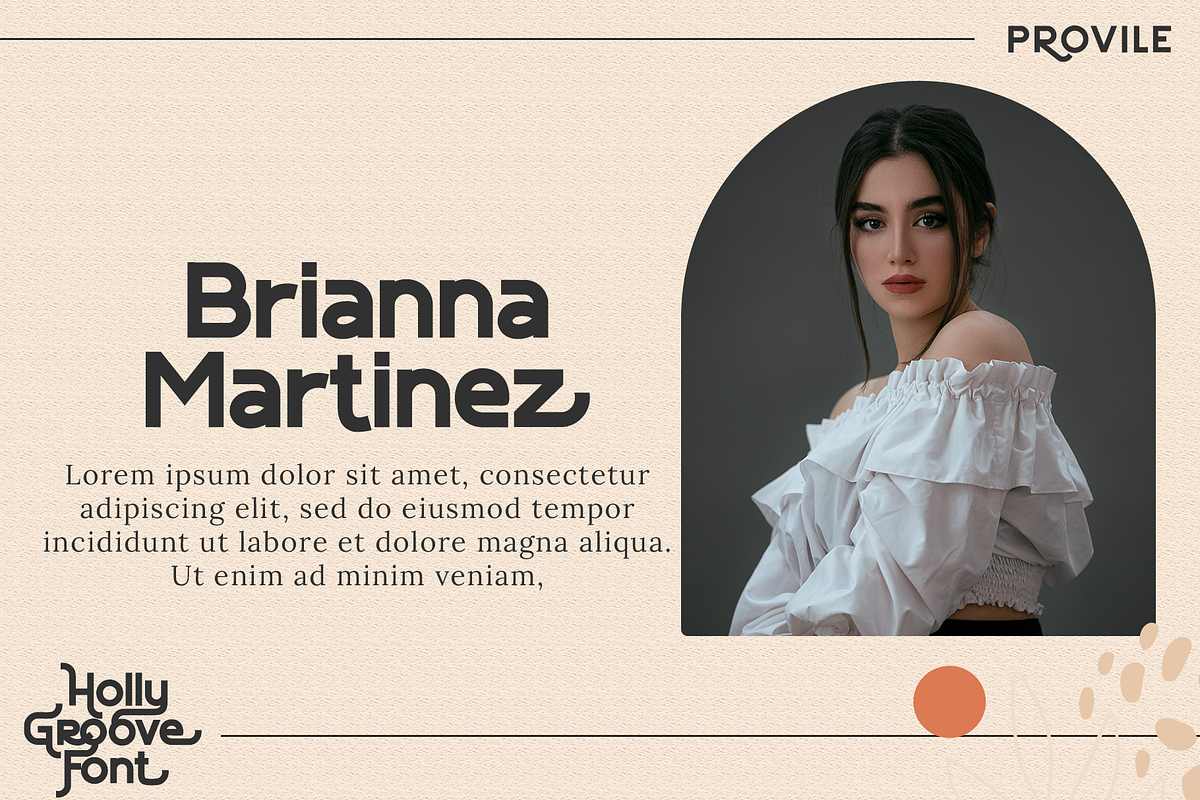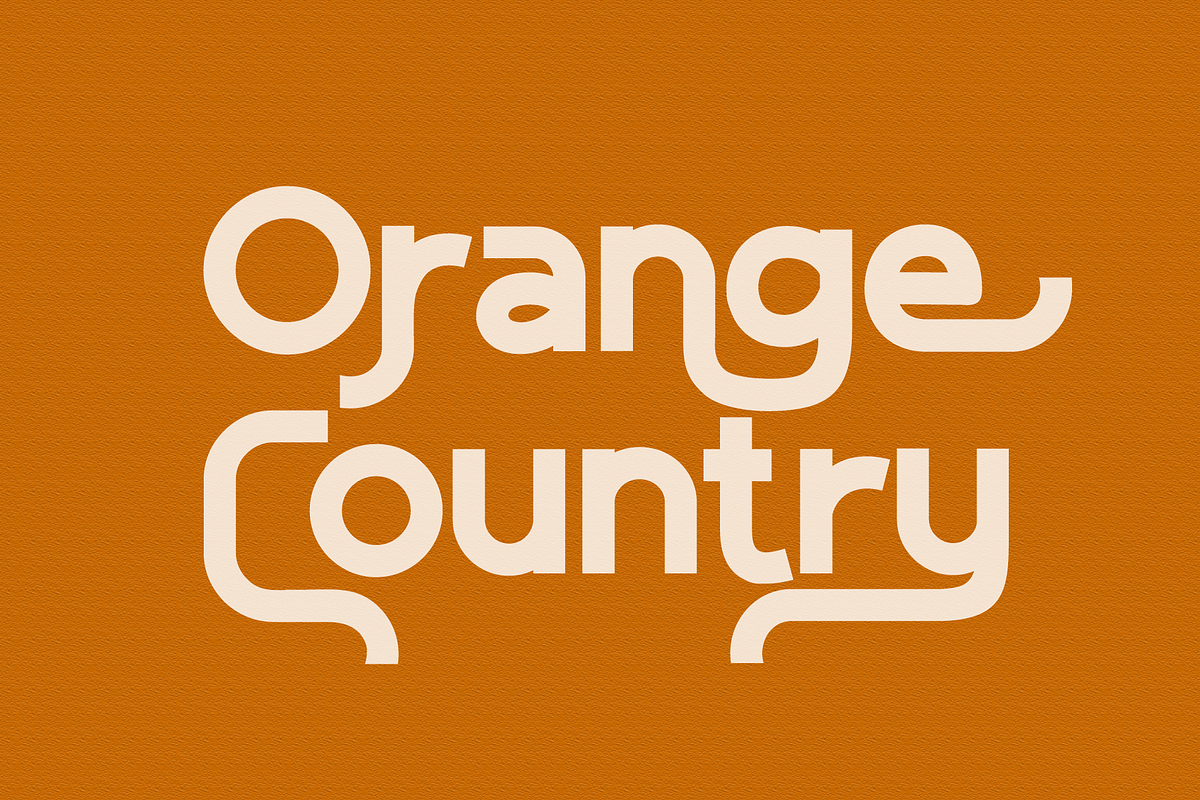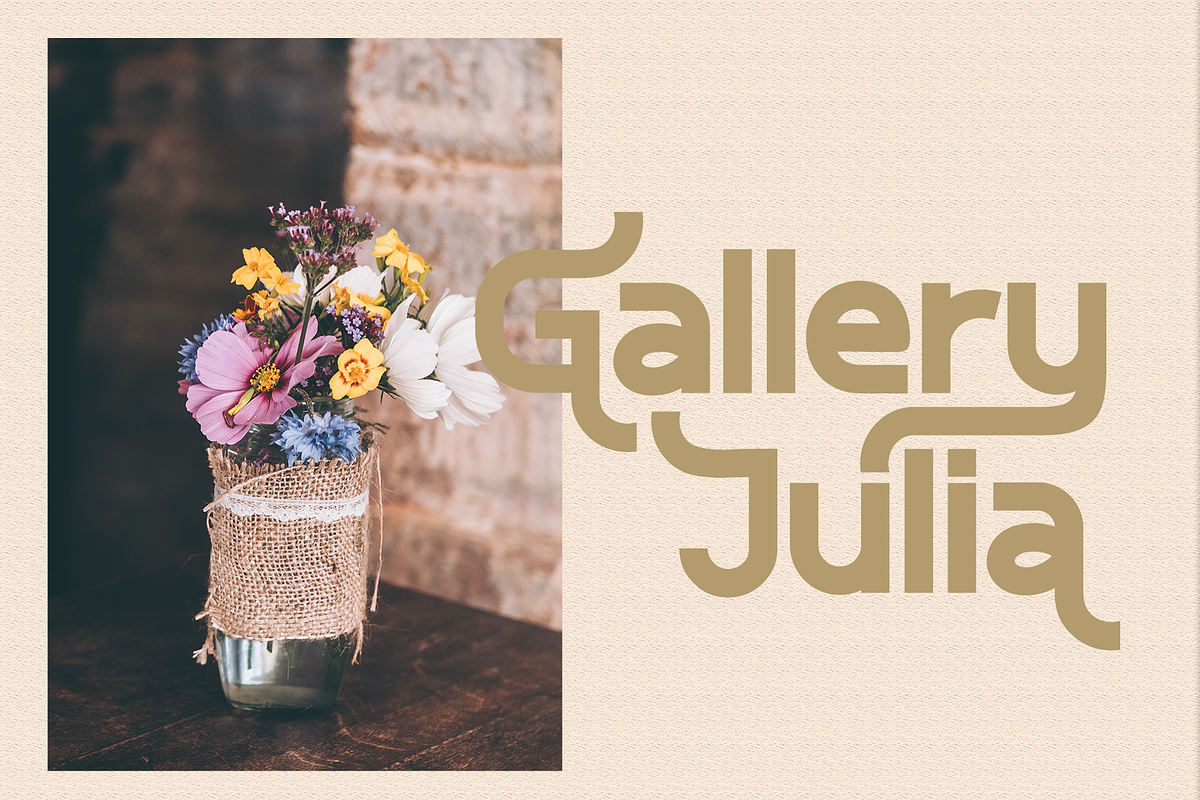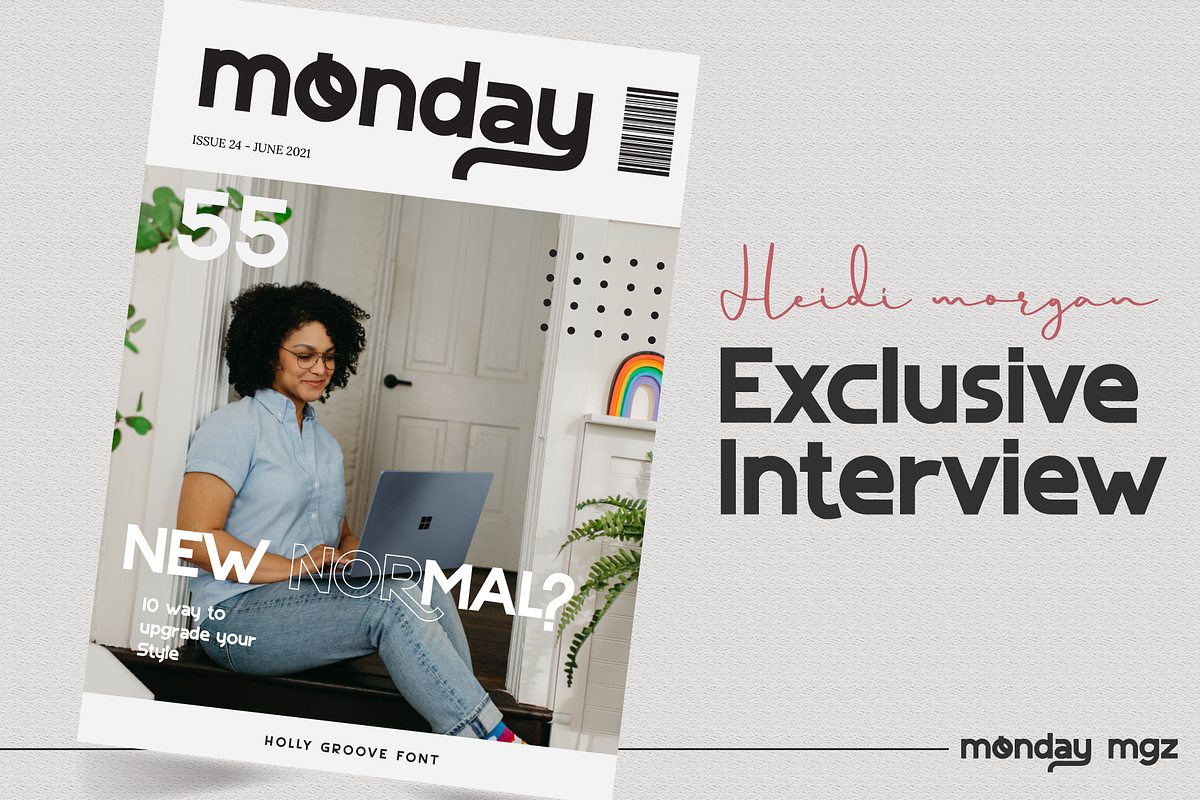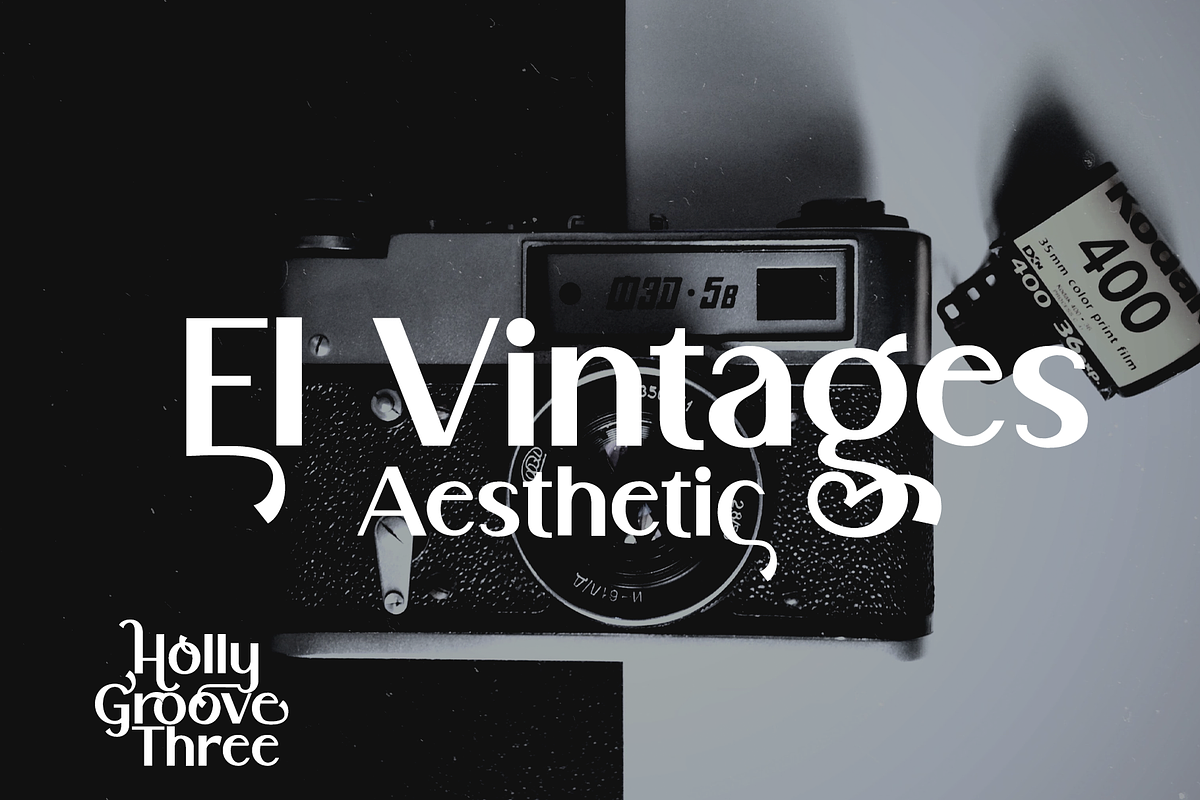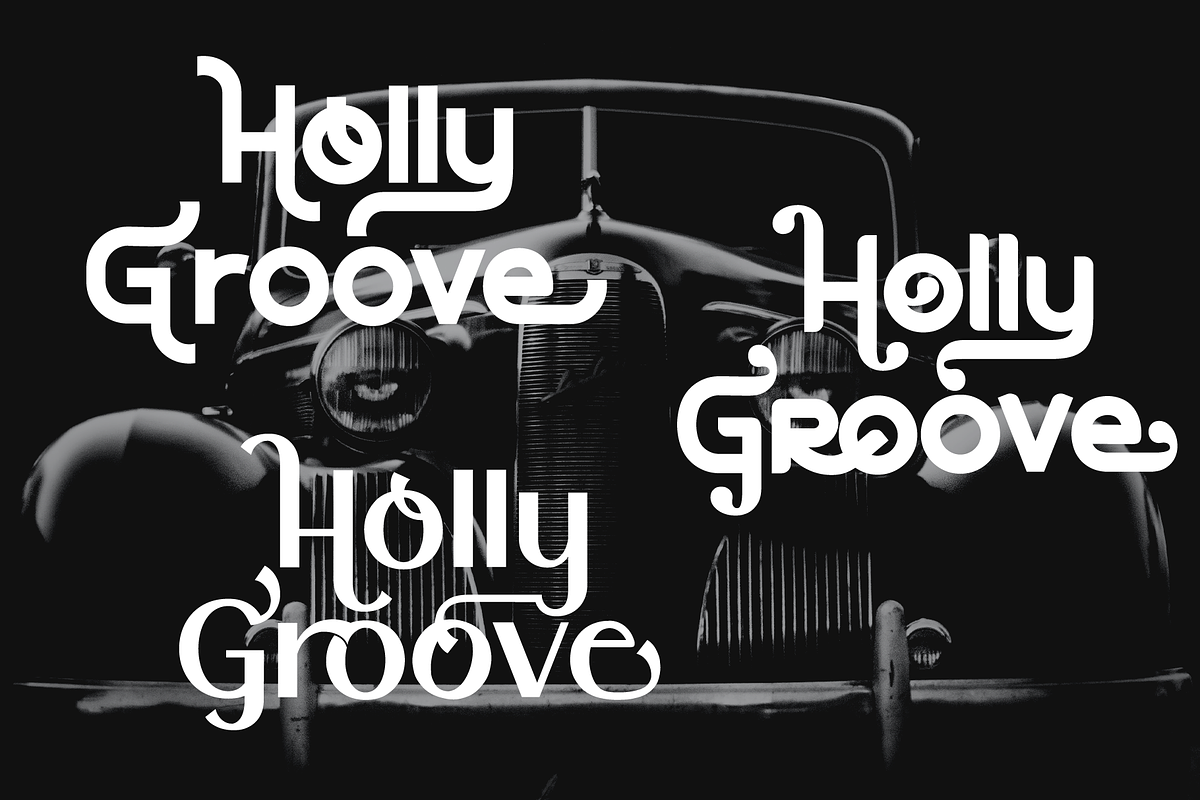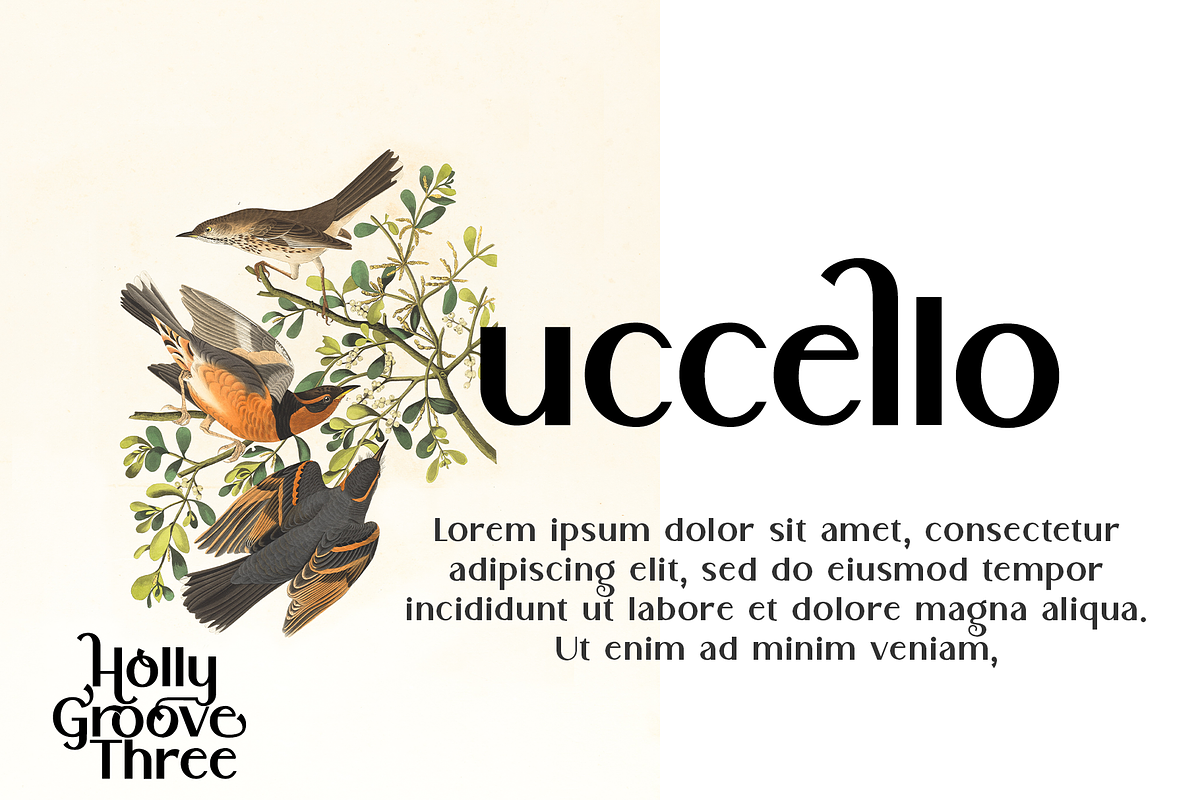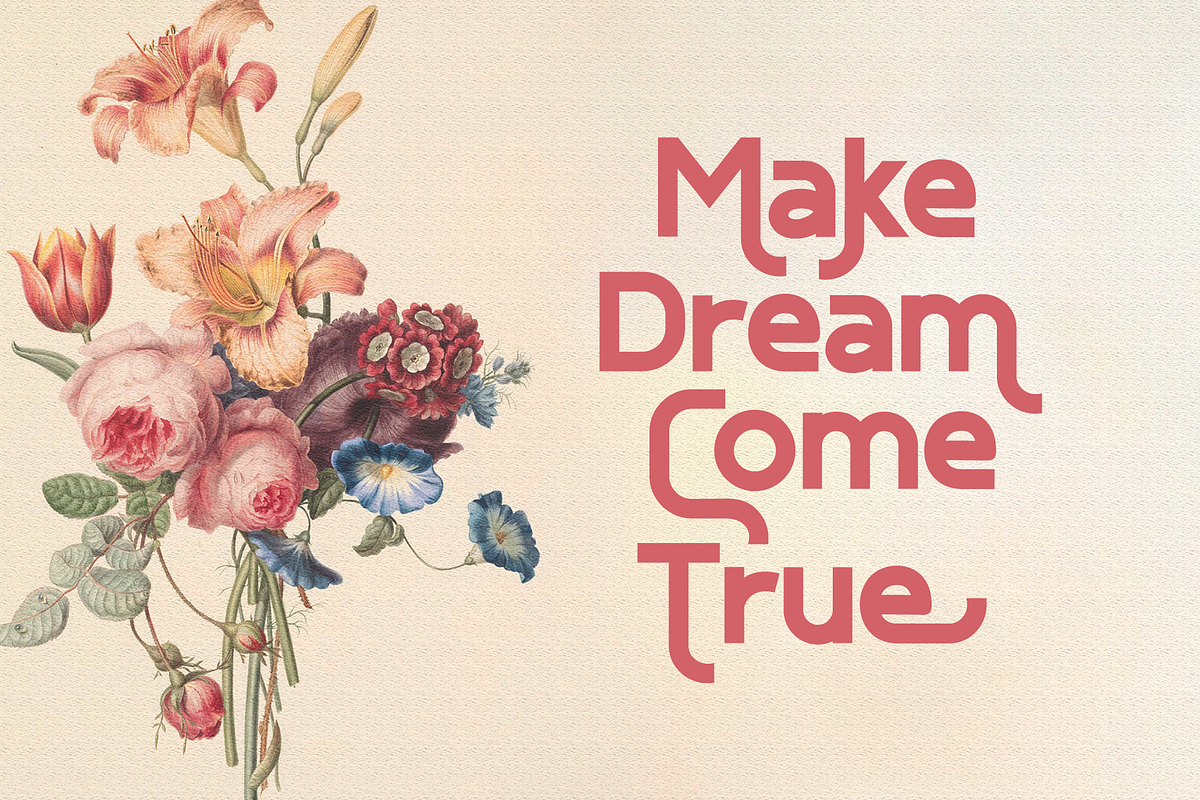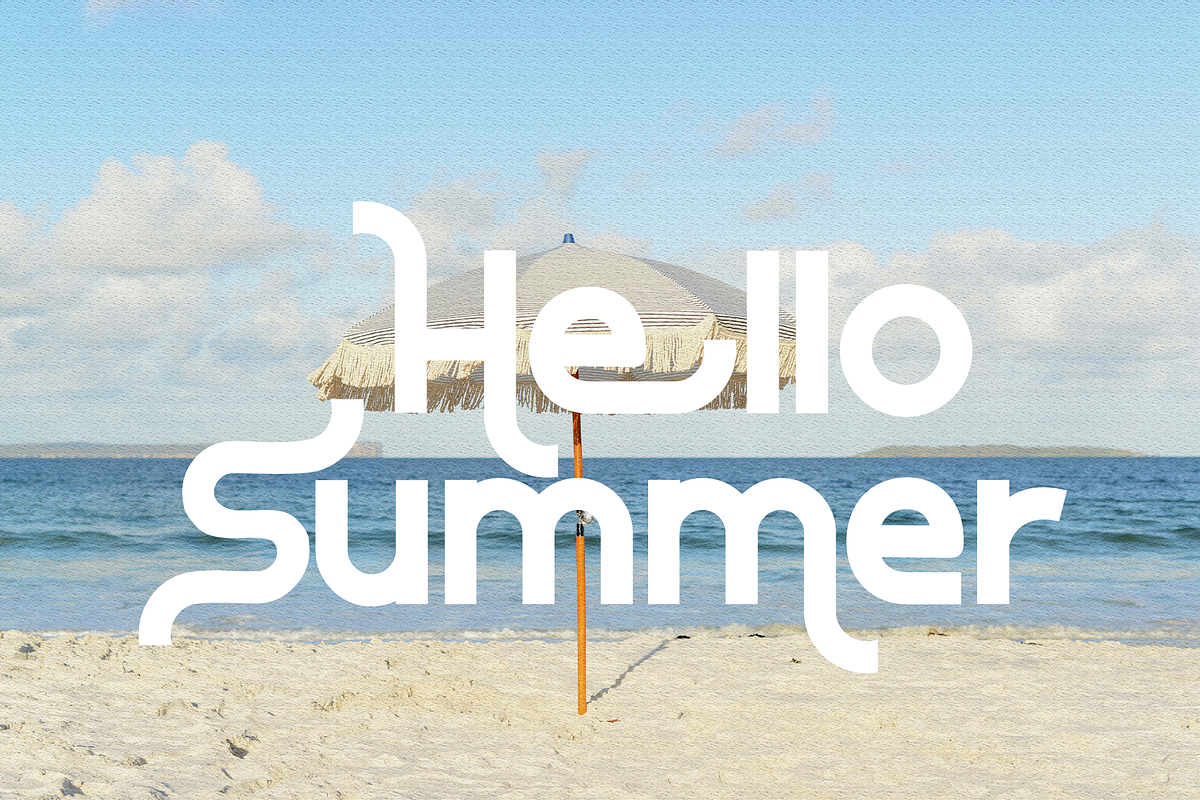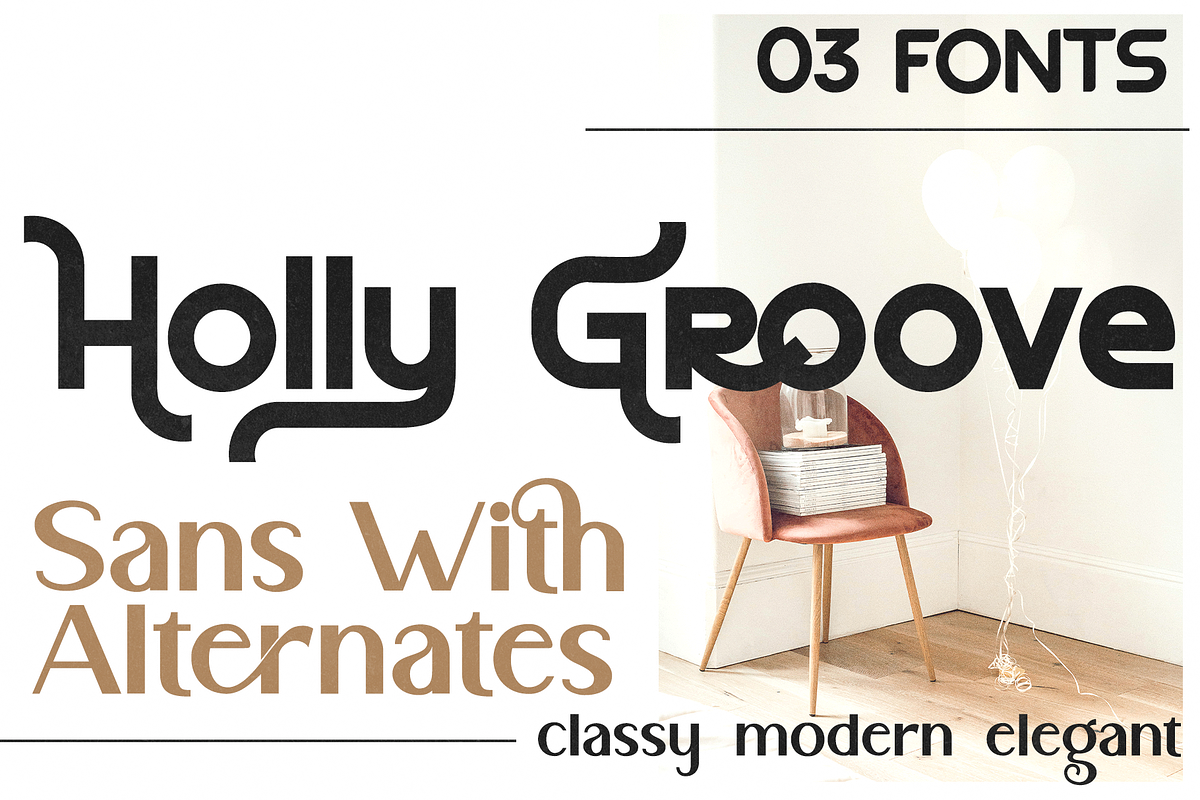
Holly Groove - Sans With Swash
Holly Groove is a sans serif font with beautifull swashes, masterfully designed to become a true favorite. It maintains its classy calligraphic influences while feeling modern and fresh.
- Uppercase, Lowercase, Numerals, Alternates & Ligatures.